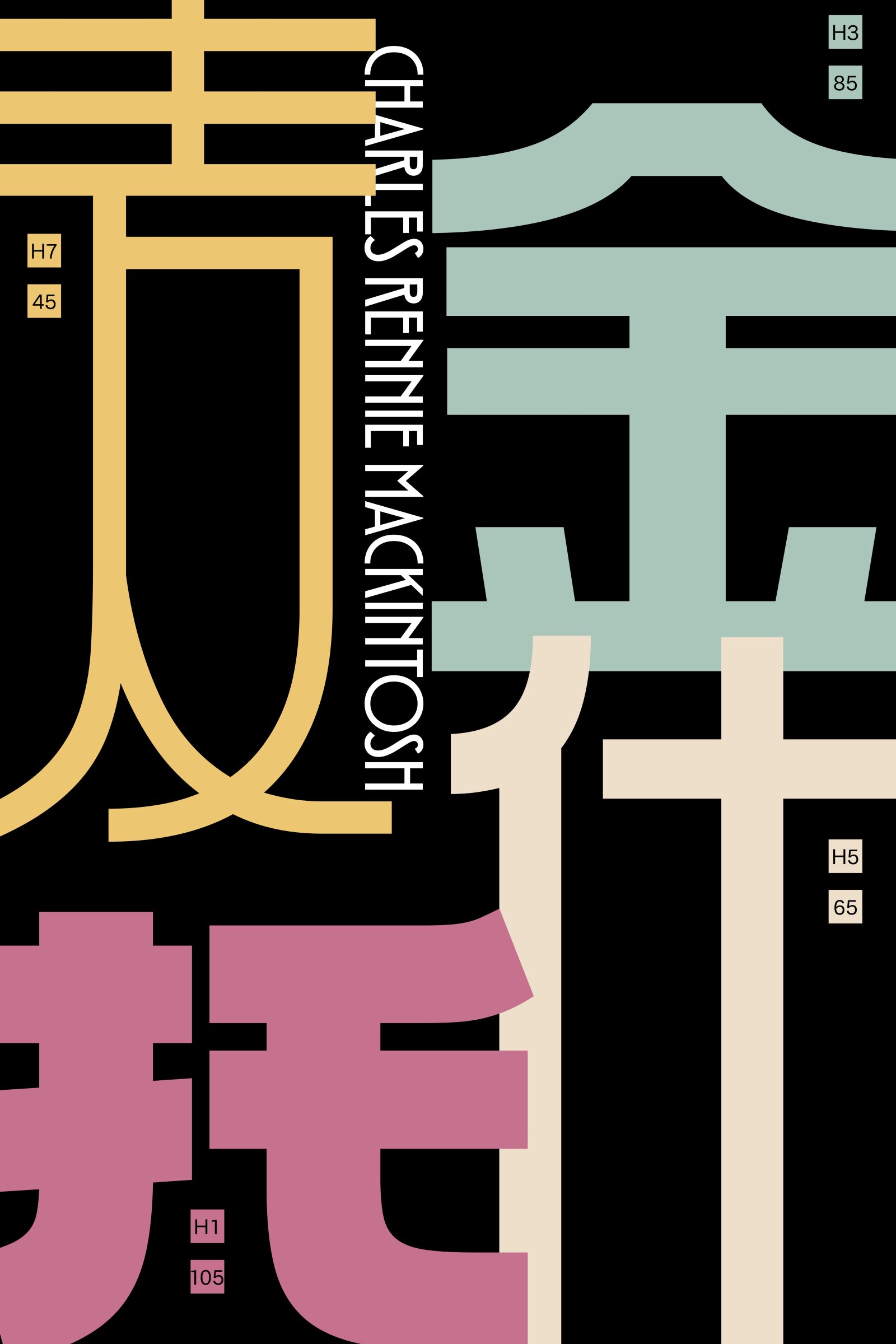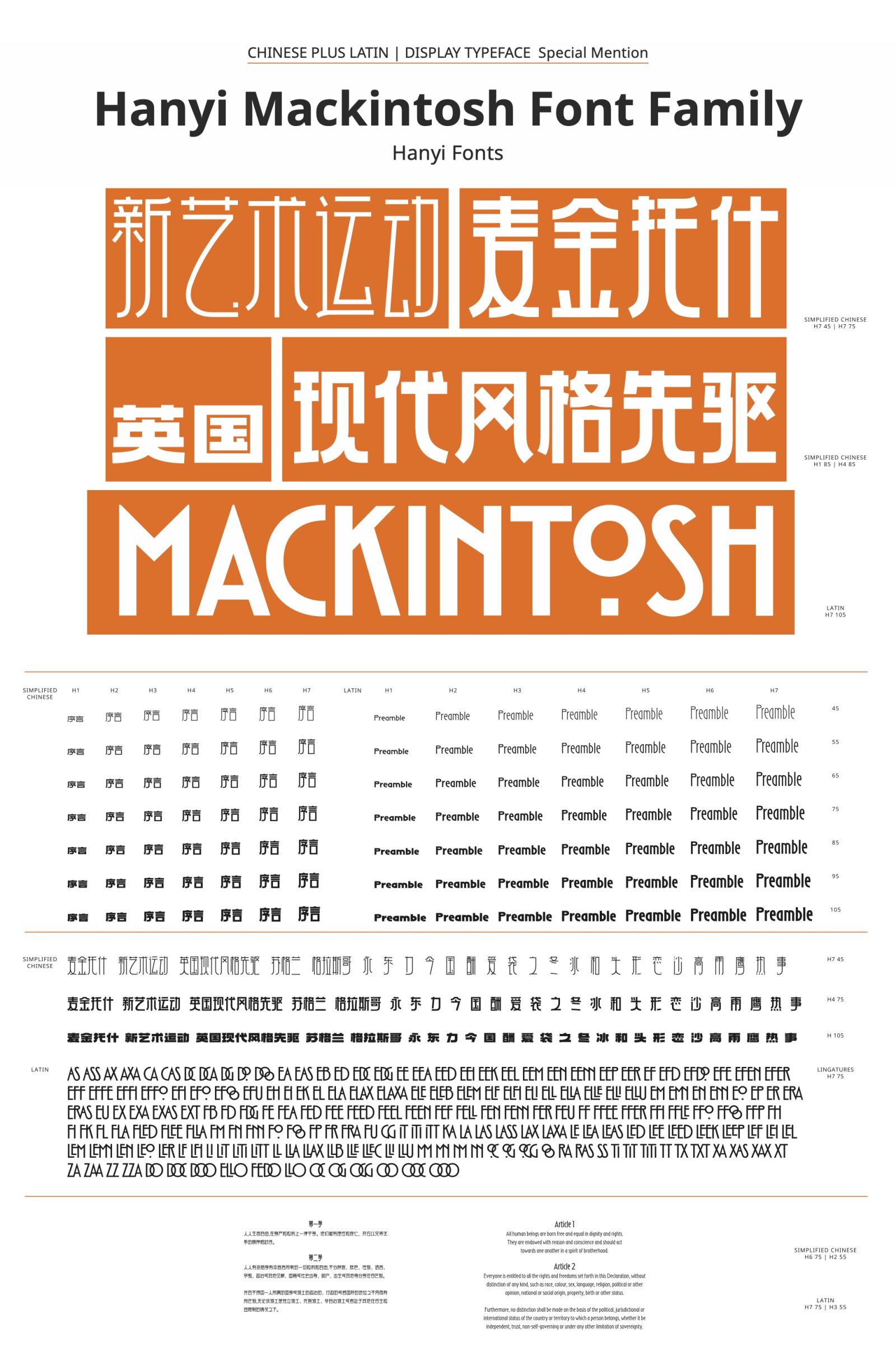
Hanyi Mackintosh Font Family
by Hanyi Fonts
Chinese
The Latin type is based upon a sign for the Willow Tea Room in Glasgow designed by Mackintosh. Mackintosh’s work is in the style of the Arts and Crafts movement, and he was a major proponent of the Art Nouveau movement in Britain. He also recognised the austerity and frugality of the Japonisme. This typeface is an attempt to match Mackintosh’s Latin typeface, which is once again associated with Eastern aesthetics, with a high centre of gravity and a very dramatic, bold design. But after all, Hanzi have a lot of strokes, which sometimes sacrifices some of the aesthetics, and it’s a pity that this typeface doesn’t have a character set listed and we don’t see more shapes.
Thisi typeface reinterprets Mackintosh’s lettering via Chinese type design, using the clean geometric lines from the original handwriting as languages to communicate Chinese characters and Latin letters, paying tribute to this important figure of Modern Style (British Art Nouveau style). Hanyi Mackintosh contains 49 styles with 7 weights and 7 heights, including 6 styles with decorative square dots. It also contains 214 ligatures in Latin.